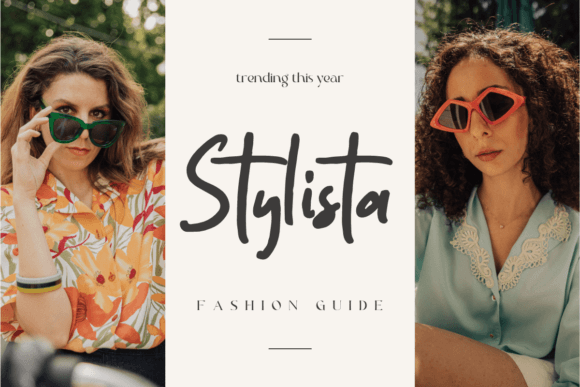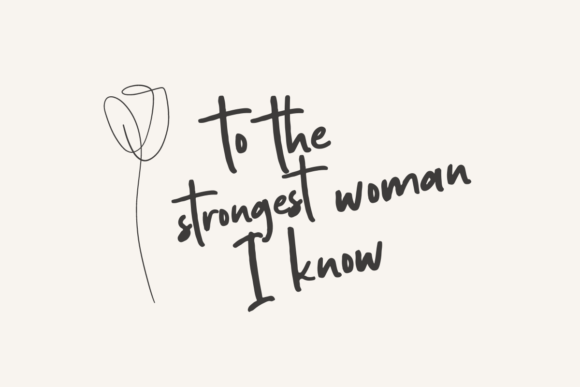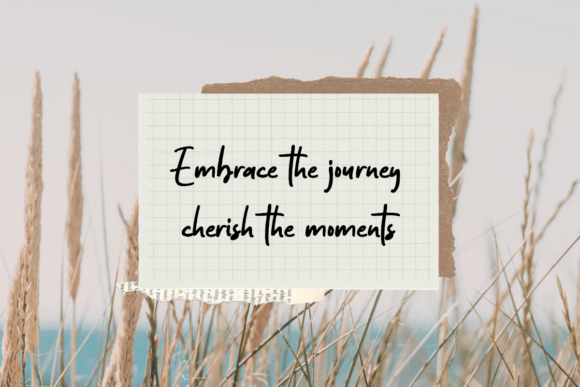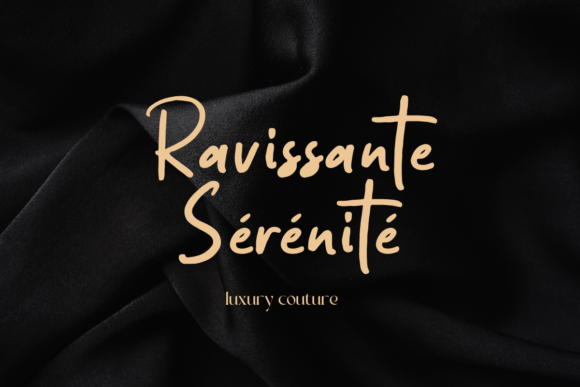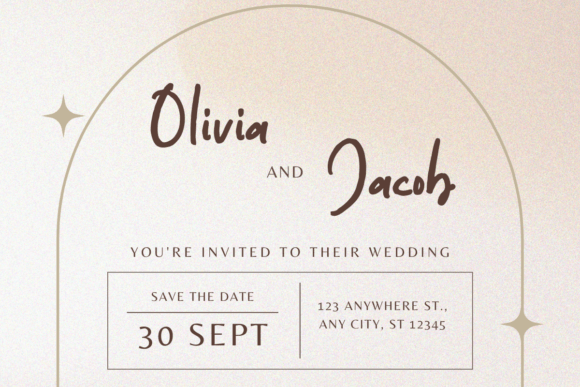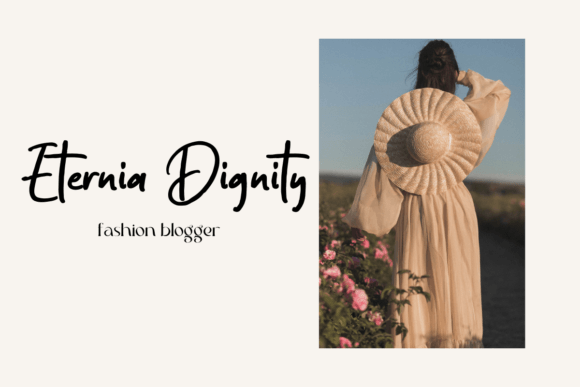
Discover the Elegance of Handwritten Script Fonts
Do you remember the moment when you first created a design that truly felt like you? The moment when every element came together to convey a message that was uniquely yours? For many designers, this moment is what drives them to continue pushing the boundaries of creativity. And it’s exactly this feeling that the Beautinus Handwritten Script Font aims to evoke in your designs.
| 👤 Author | Fikryal Studio |
This beautiful and exclusive typeface is designed to add an elegant and feminine touch to your graphic designs. With its soft and classy handwritten appearance, Beautinus Font exudes a romantic and artistic atmosphere that’s perfect for conveying messages of gentleness, beauty, and warmth. Whether you’re working on logos, branding, or greeting cards, Beautinus Font is a valuable asset in your design arsenal, offering the perfect blend of uniqueness and elegance.
With its smooth-flowing characters and flexibility to adjust letter size and style, Beautinus Font provides the perfect canvas for you to unleash your creativity and create truly unique designs that speak to your audience.
Beautinus Font Key Features
- Font Family: Beautinus Font comes in a single font family with multiple styles, including regular, bold, italic, and bold italic.
- Unique Characteristics: The font features a unique blend of elegant and modern design elements, making it suitable for a wide range of applications, from corporate branding to creative projects.
Beautinus Font Review
I’ve had the chance to play around with the Beautinus Font, and I’m excited to share my thoughts with you. ✨ One of the things that really stands out is the unique and elegant design. It’s perfect for creating a high-end feel in your projects. The font is also highly legible, making it a great choice for body text.
The Beautinus Font also comes in a variety of weights and styles, which is a big plus. It’s great to have the flexibility to choose the perfect font to match your design’s tone and mood. ✨ Additionally, the font is well-suited for a range of applications, from digital to print.
- ⚠️ The font may be too ornate for some projects, making it difficult to read in certain contexts.
- ⚠️ The font’s unique design may not be suitable for projects where simplicity is key.
- ⚠️ The font’s high-end feel may not be the right fit for projects with a more casual tone.
Overall, I think the Beautinus Font is a solid choice for designers looking to add some elegance to their projects. While it may not be the best fit for every project, it’s definitely worth considering for the right application. With a little creativity, the Beautinus Font can help take your design to the next level.
Beautinus Font is ideal for:
1. Designing elegant and sophisticated logos.
2. Creating eye-catching headlines and titles.
3. Adding a touch of luxury to your branding materials.
Tips for Getting the Most Out of Beautinus Font
1. Use Beautinus Font in combination with other elegant fonts for a sophisticated look.
2. Experiment with different font sizes and colors to create visual interest.
3. Use Beautinus Font for headings and titles, and a simpler
Alternatives to Beautinus Font
Playfair Display is a luxurious and elegant serif font, perfect for high-end branding and typography. It features intricate details and a classic feel, making it suitable for use in titles, headings, and formal documents. In comparison to Beautinus Font, Playfair Display has a more traditional and sophisticated look, while Beautinus Font is more modern and minimalist.